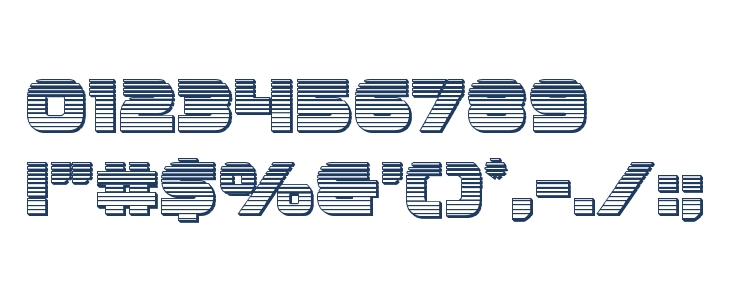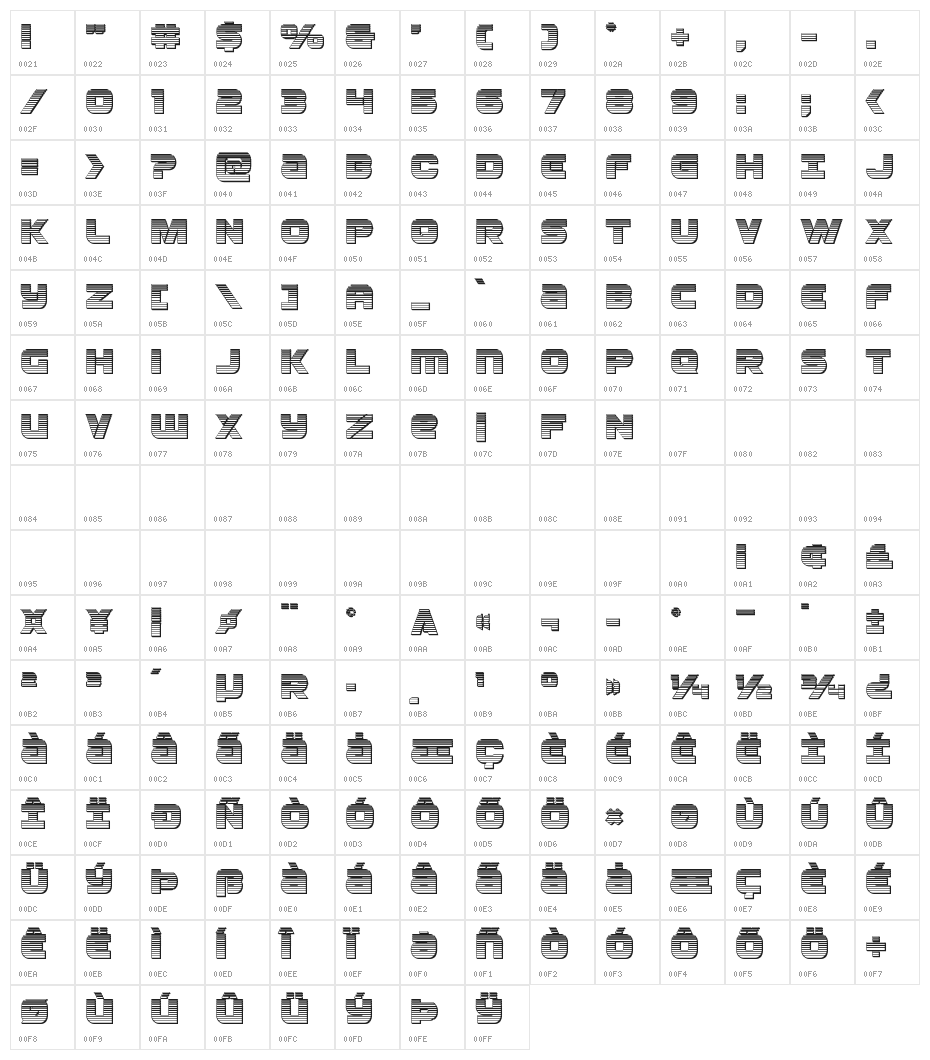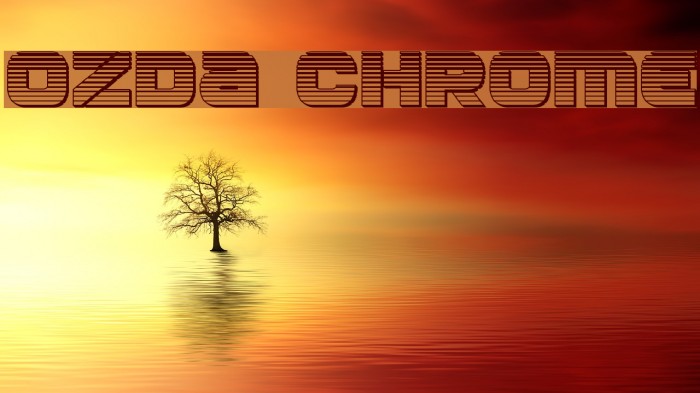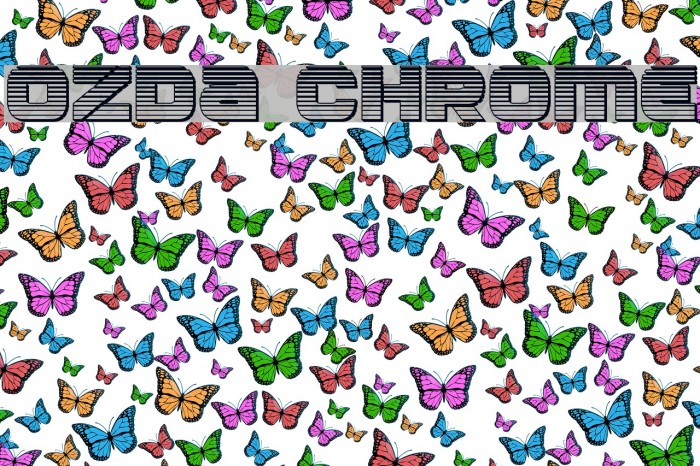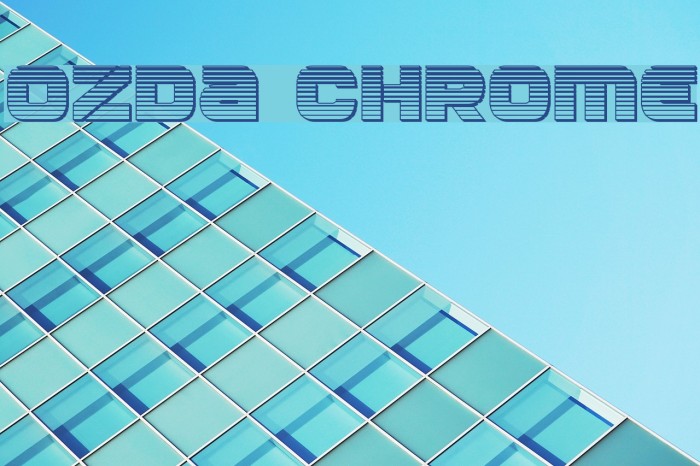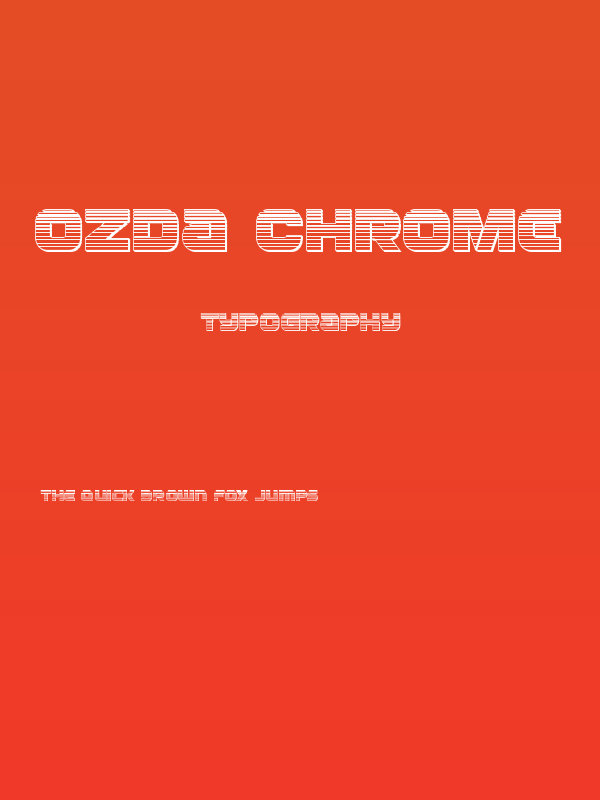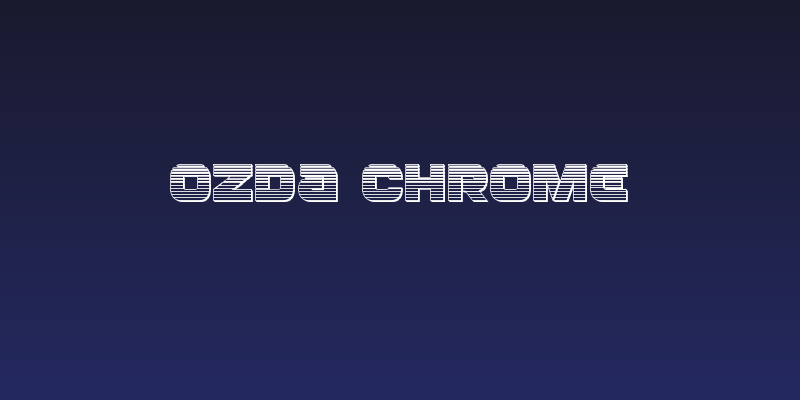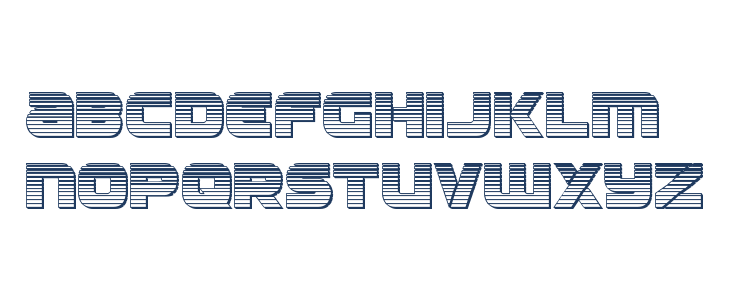
Ozda Chrome Font
Ozda Chrome Description
This font features a bold, futuristic design with a distinct striped pattern running horizontally across each character. The geometric shapes and sharp angles give it a modern and industrial feel, making it stand out in any design. The uppercase and lowercase letters maintain a consistent style, with the numerals and special characters following suit. The overall look is both eye-catching and unique, suitable for projects that require a strong visual impact.
| Proposed Projects | Ideal for sci-fi themed posters, tech branding, video game titles, and modern advertising campaigns. |